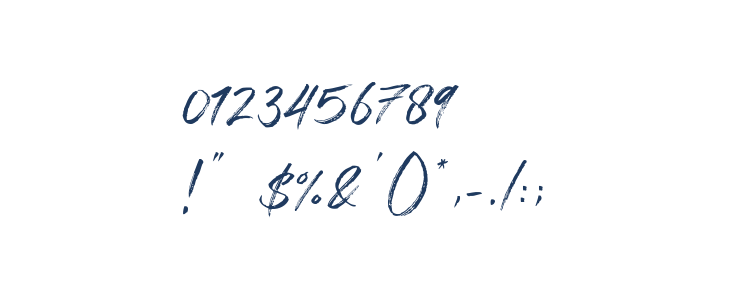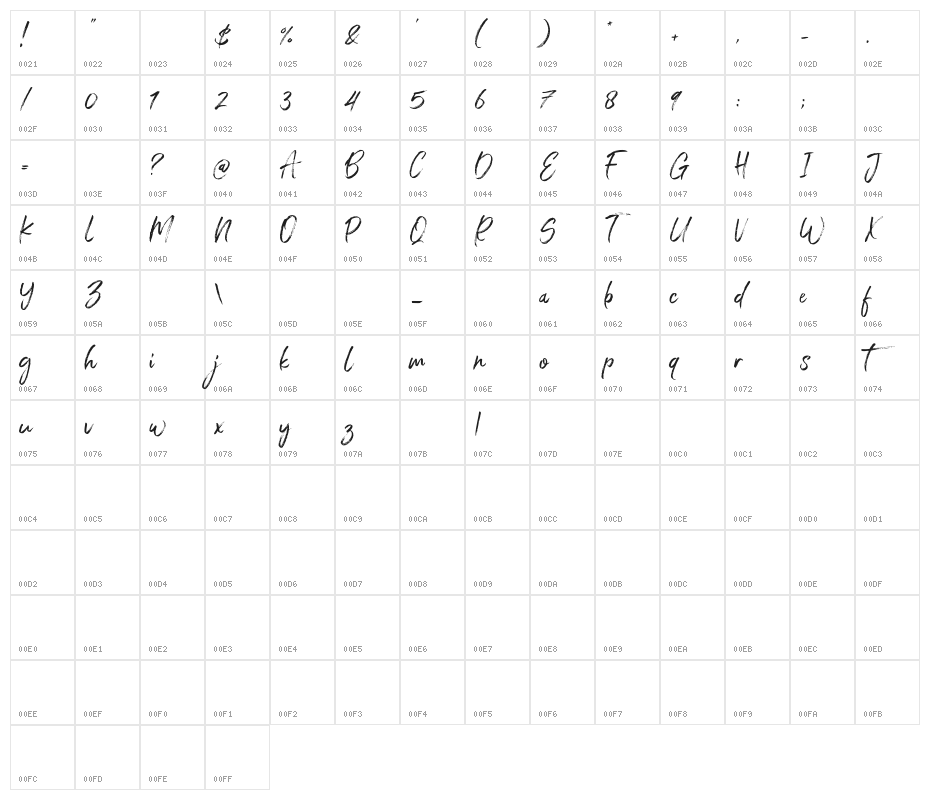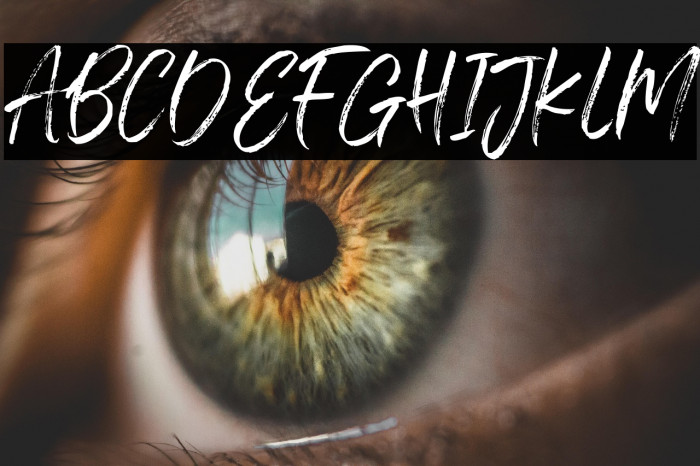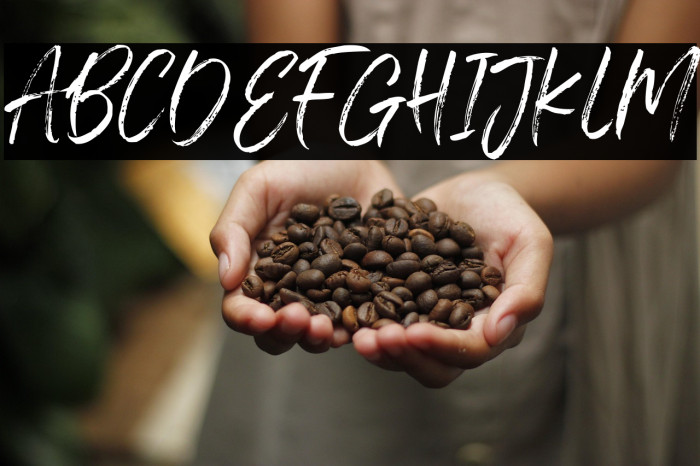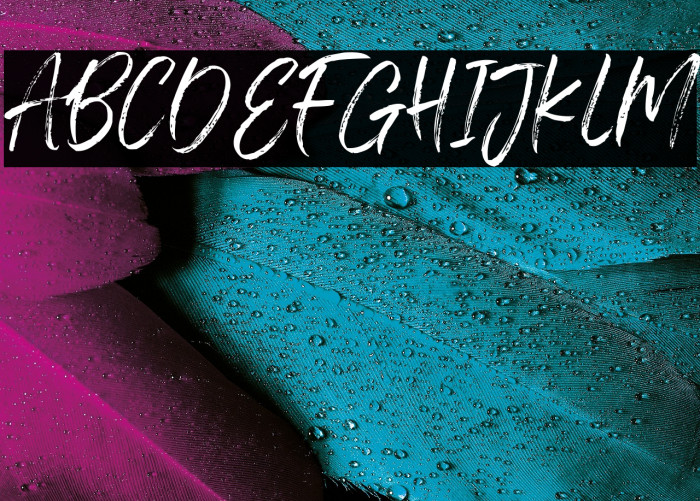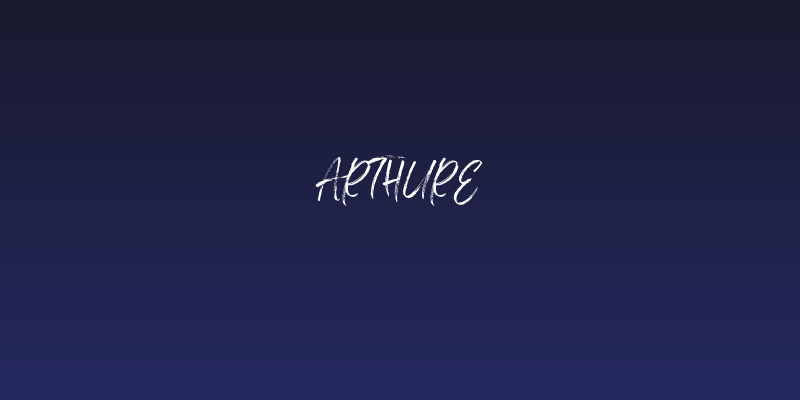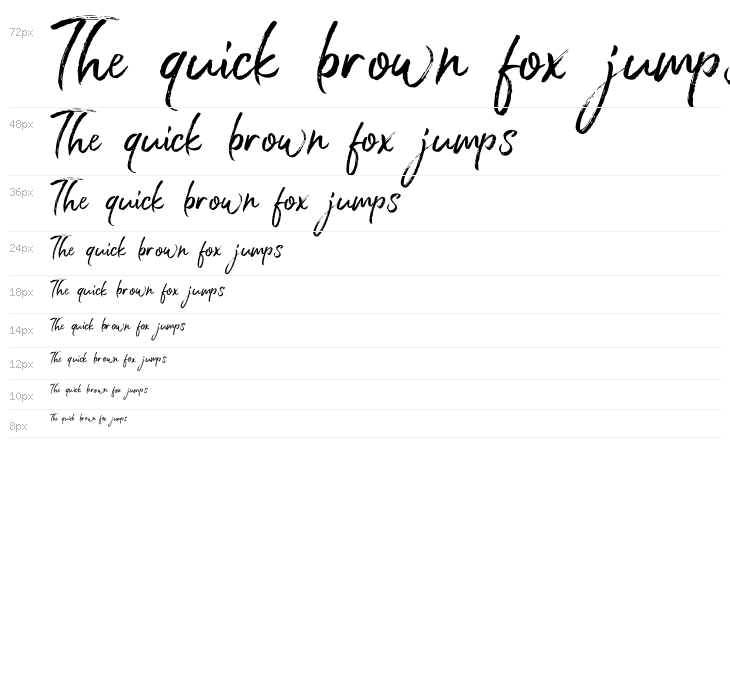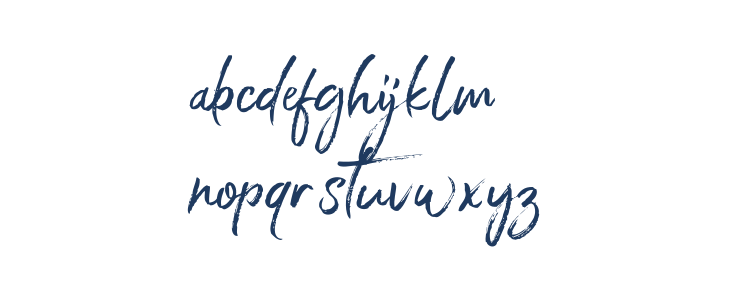
Arthure Font
Arthure Description
This font exhibits a dynamic and expressive handwritten style, characterized by its bold, brush-like strokes that convey a sense of energy and movement. The letters are slightly slanted, adding to the fluidity and casual elegance of the design. The uppercase and lowercase letters maintain a consistent style, with some variation in stroke width that enhances the handwritten feel. The numbers and special characters are crafted with the same attention to detail, ensuring a cohesive look across all elements. The overall appearance is both artistic and approachable, making it suitable for projects that require a personal touch.
| Use Case | Logos, Headlines, Artistic projects |
| Proposed Projects | Ideal for branding, invitations, greeting cards, and artistic projects that require a personal and expressive touch. |